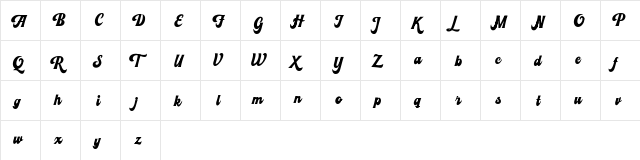
Relieve Demo Regular
| Designer | Dimas Aditya |
Design Context for Relieve Demo Typeface
Relieve Demo is a composed and adaptable typeface that performs quietly and consistently across a wide range of design contexts.